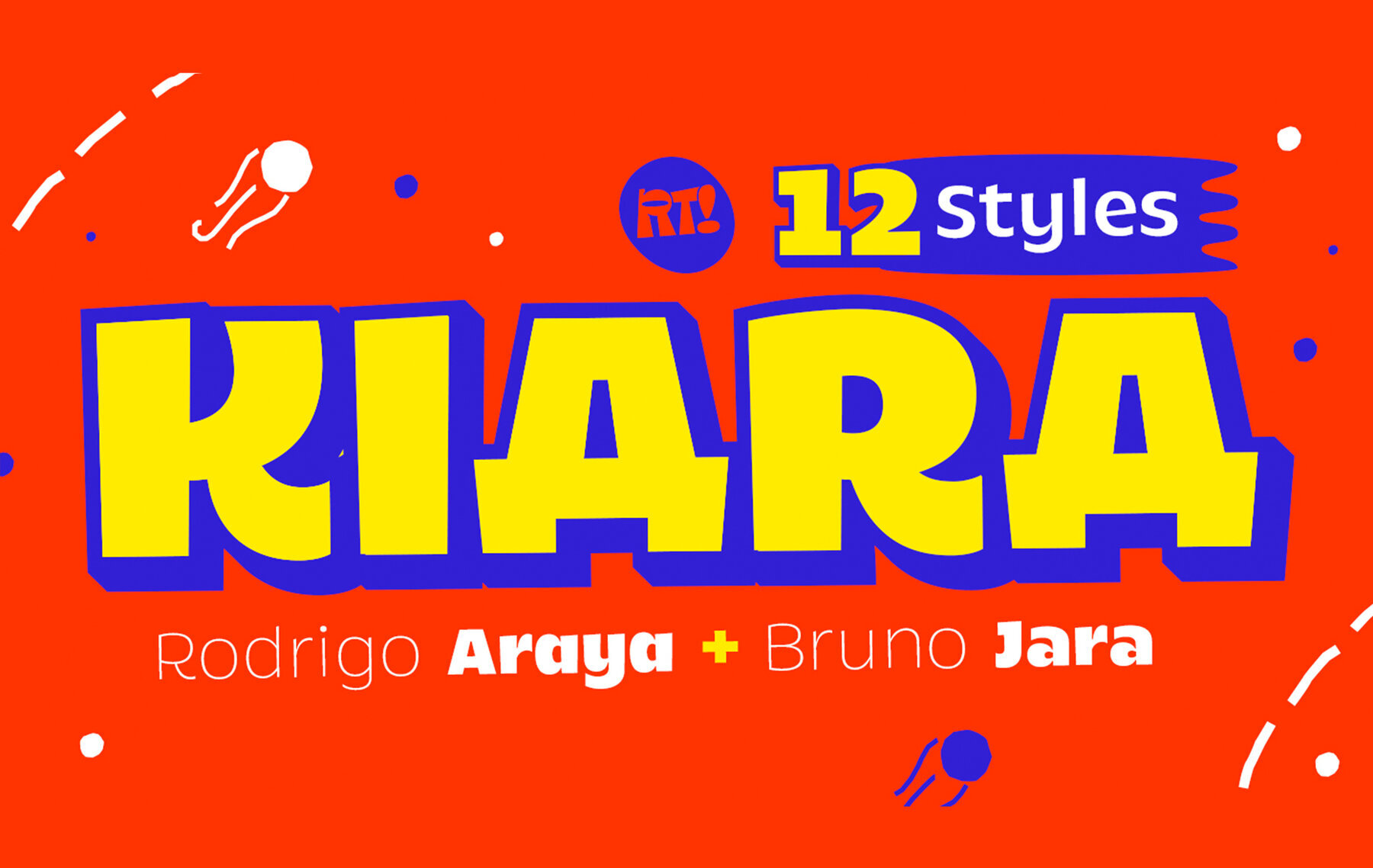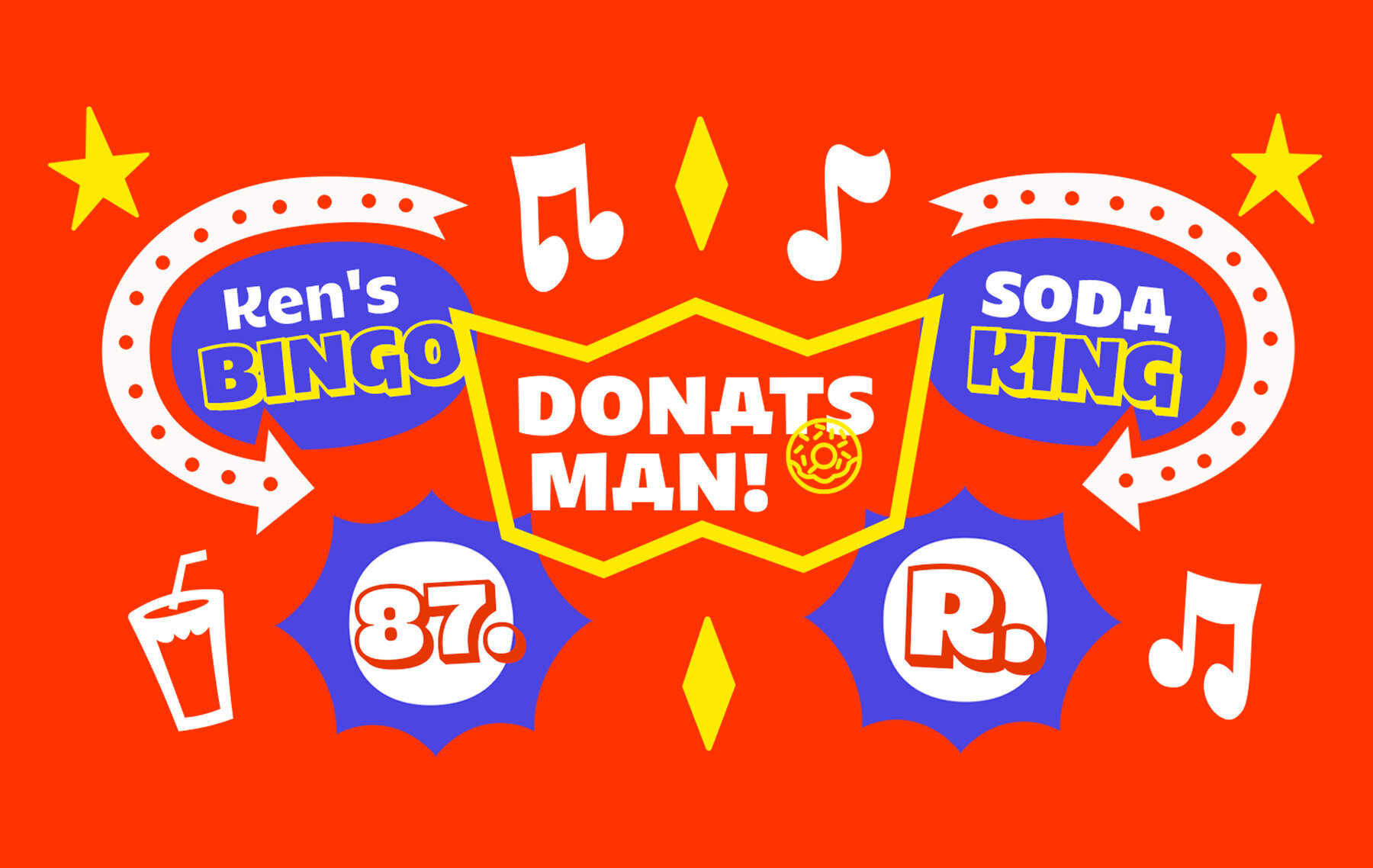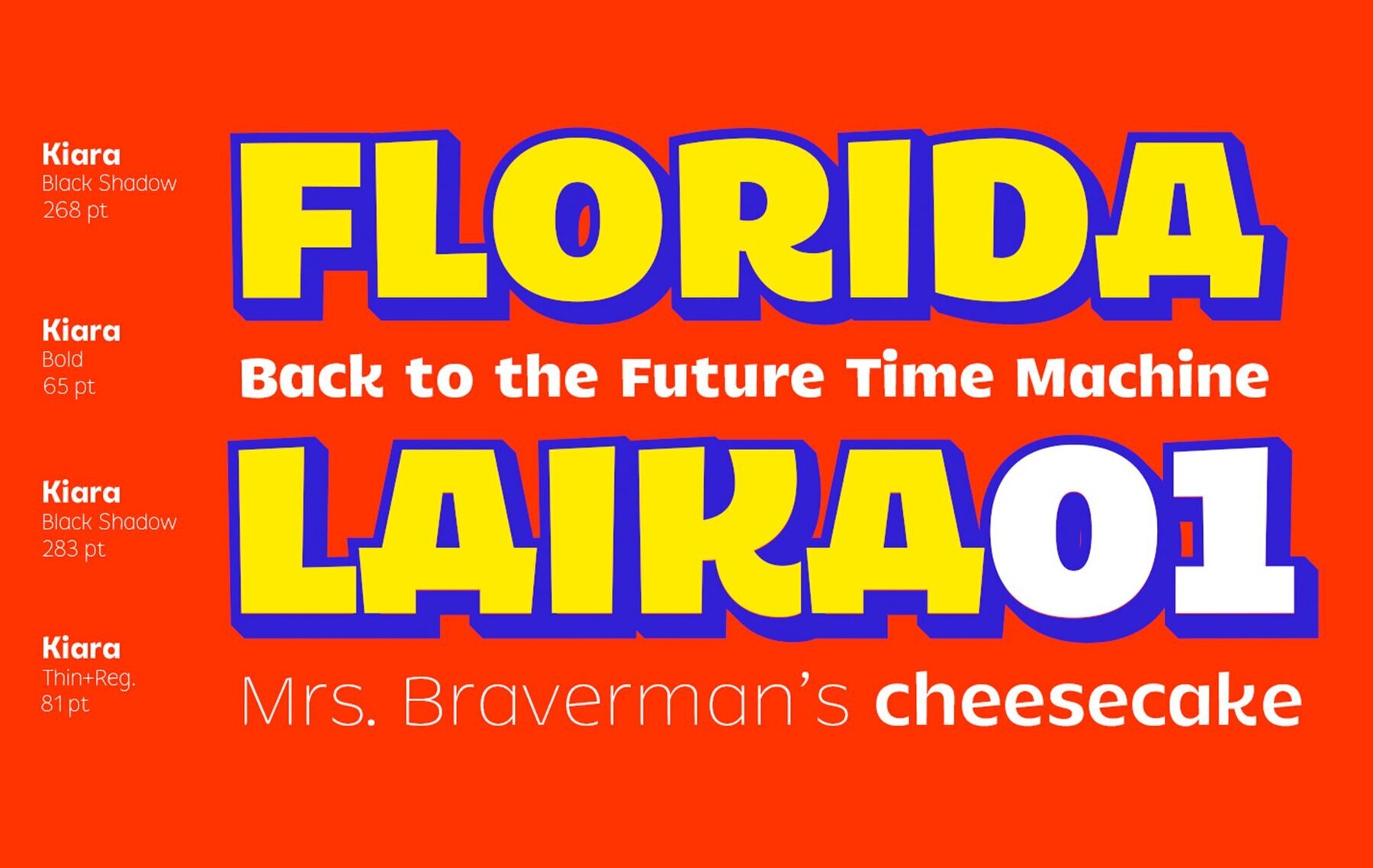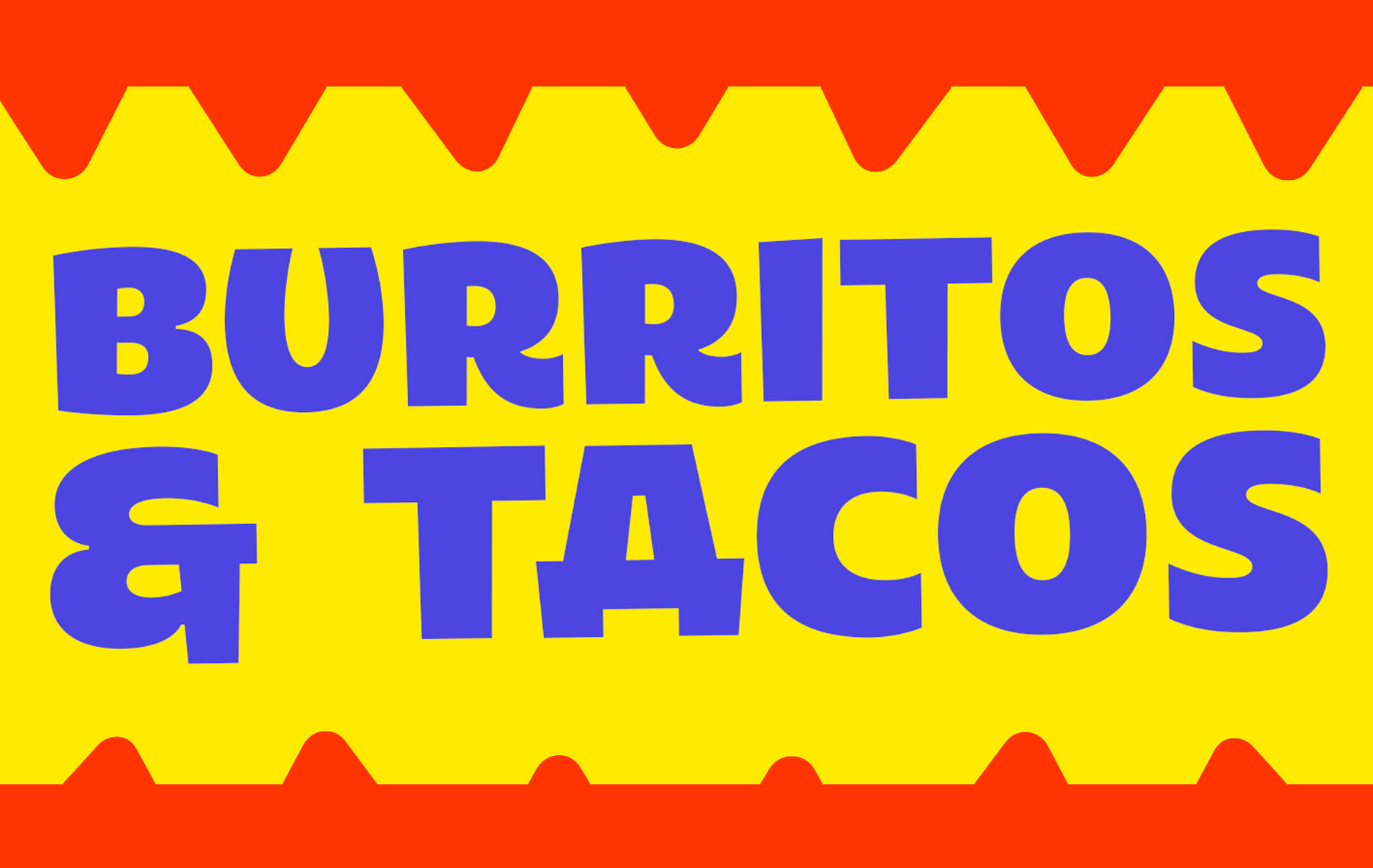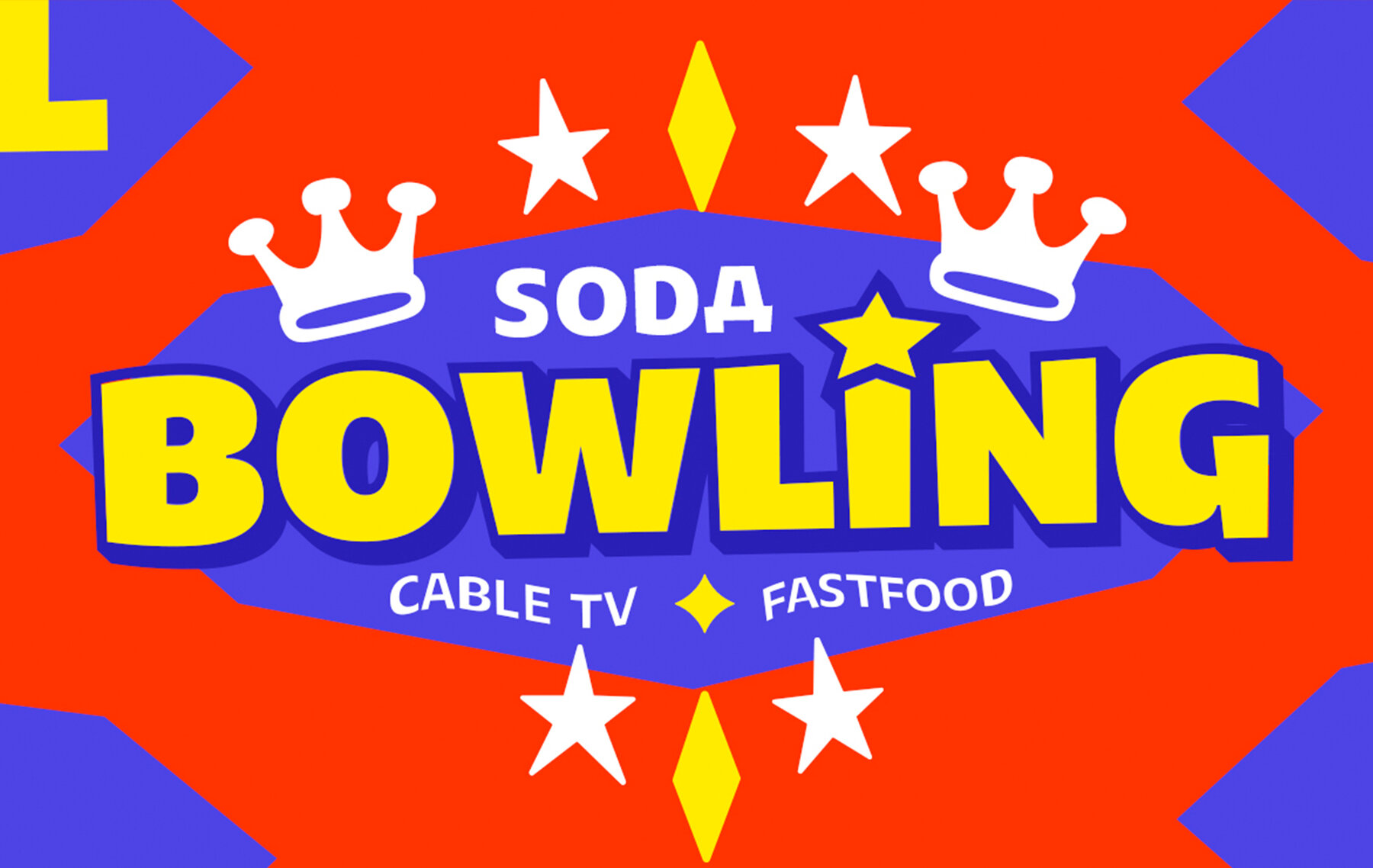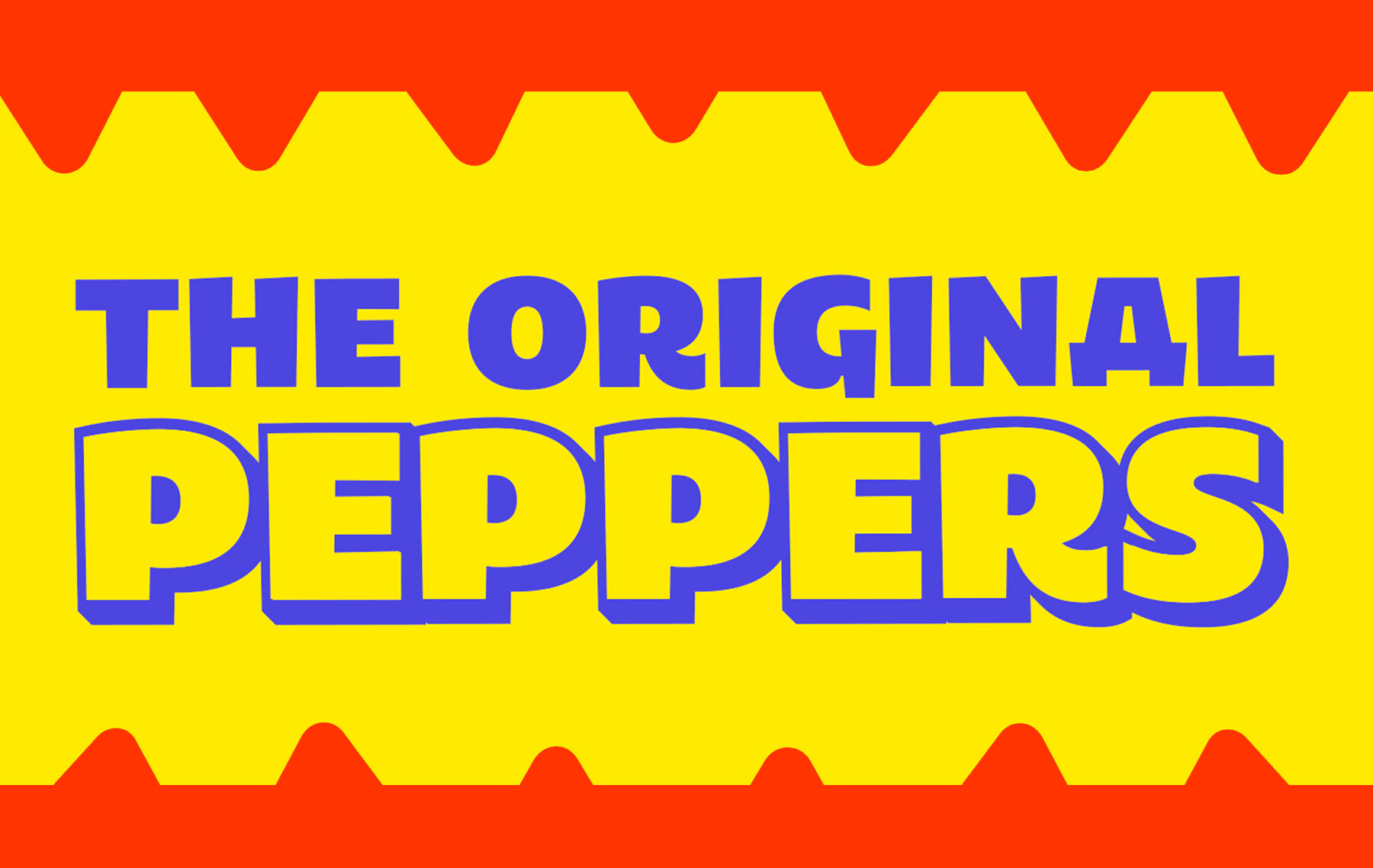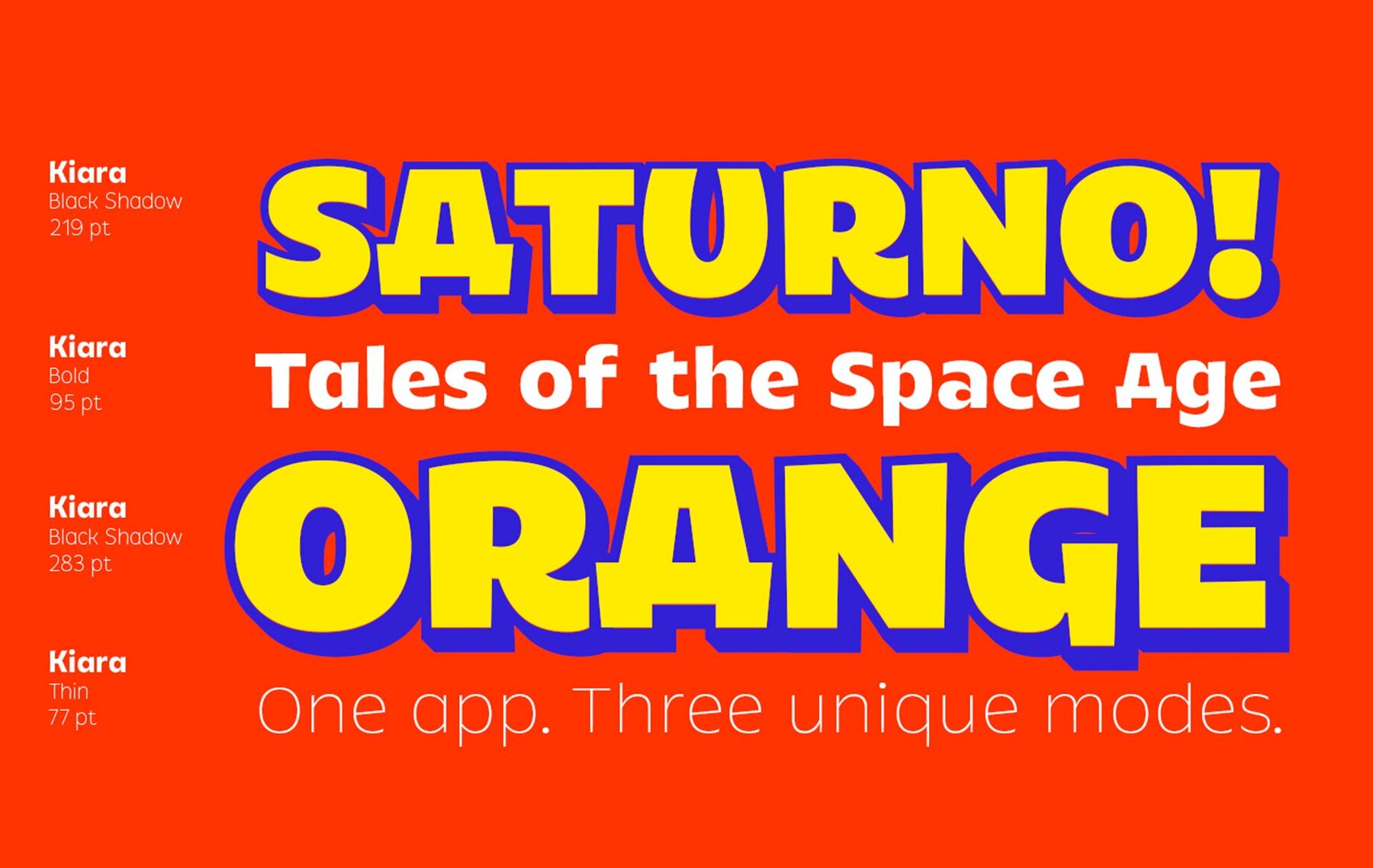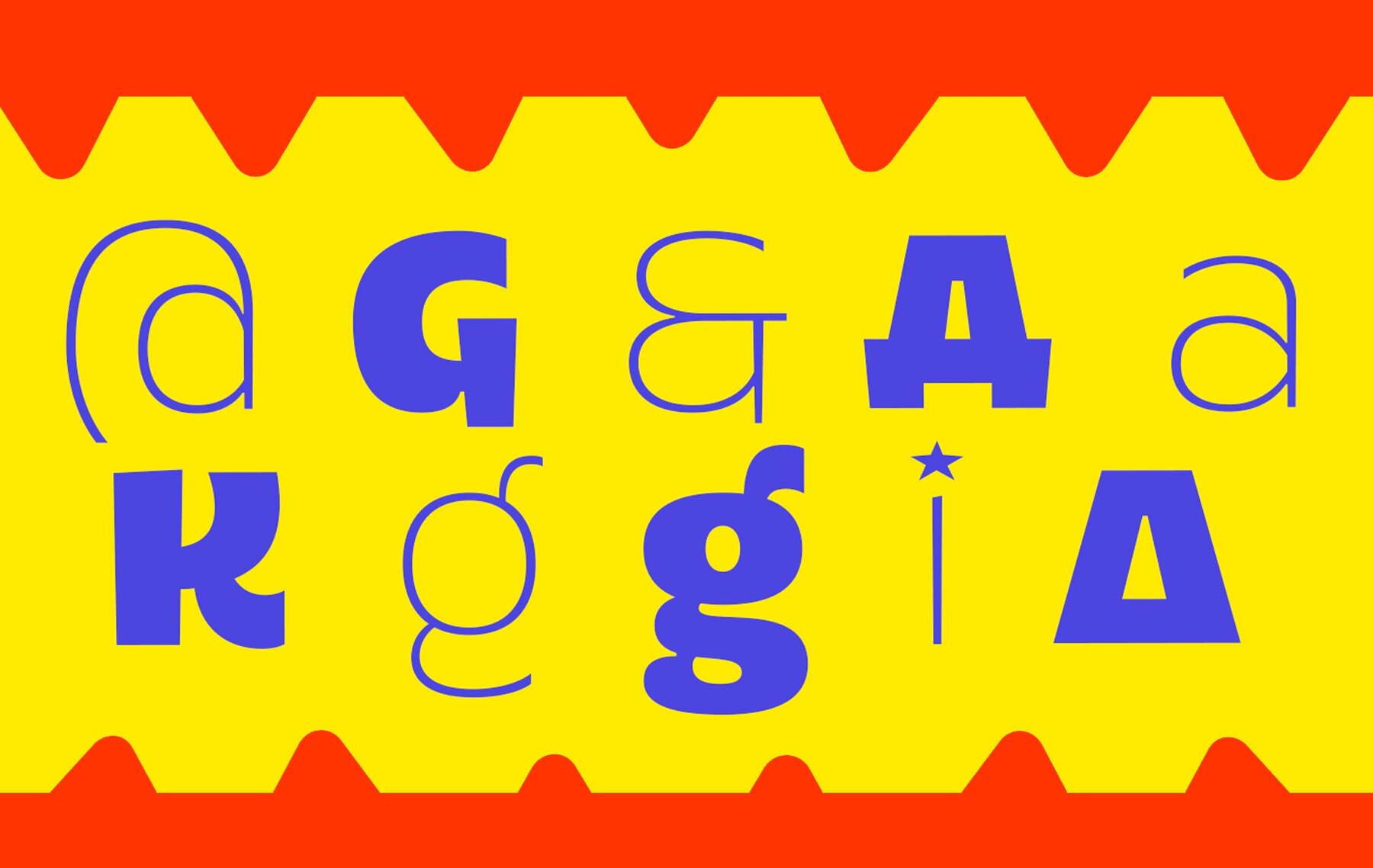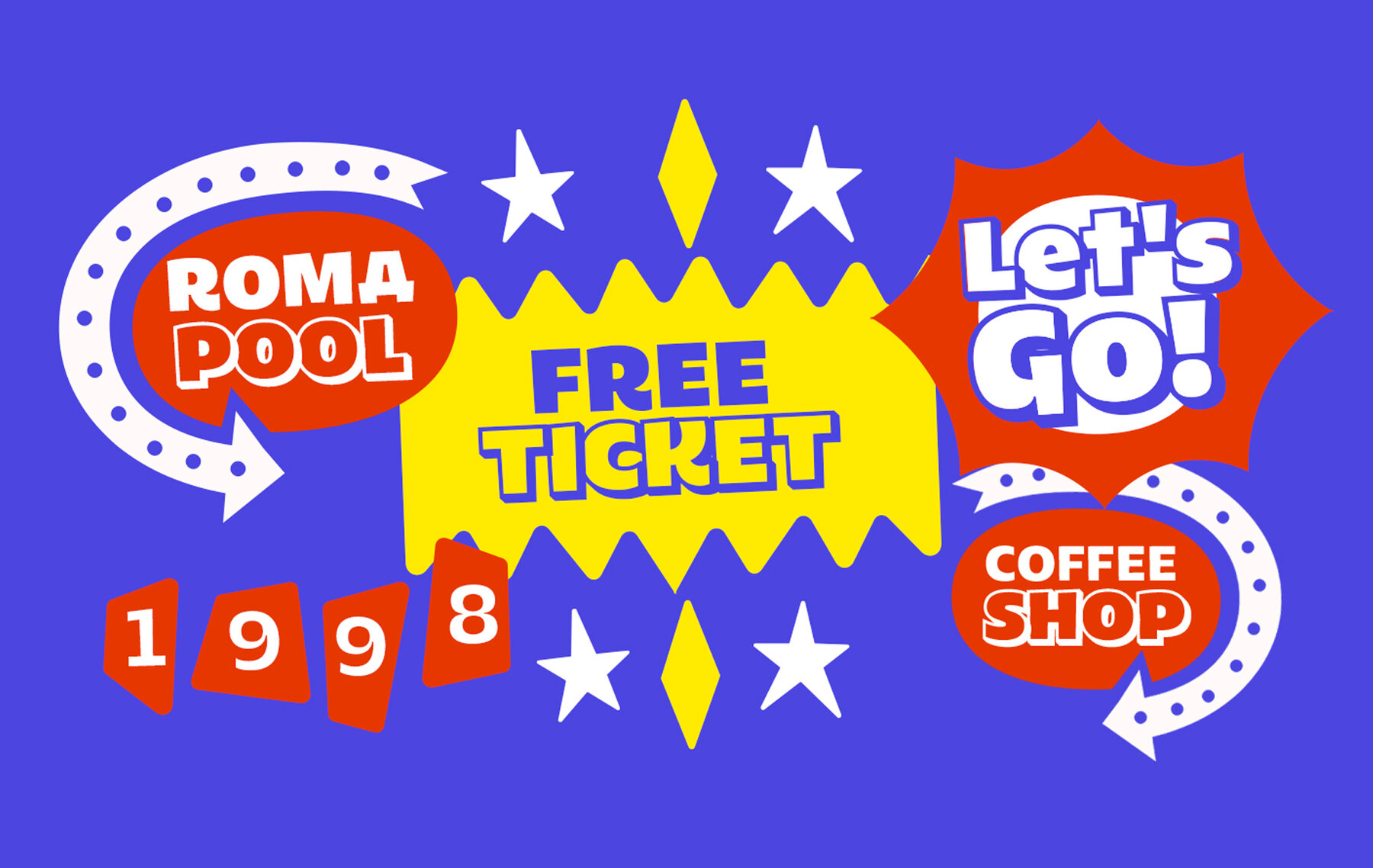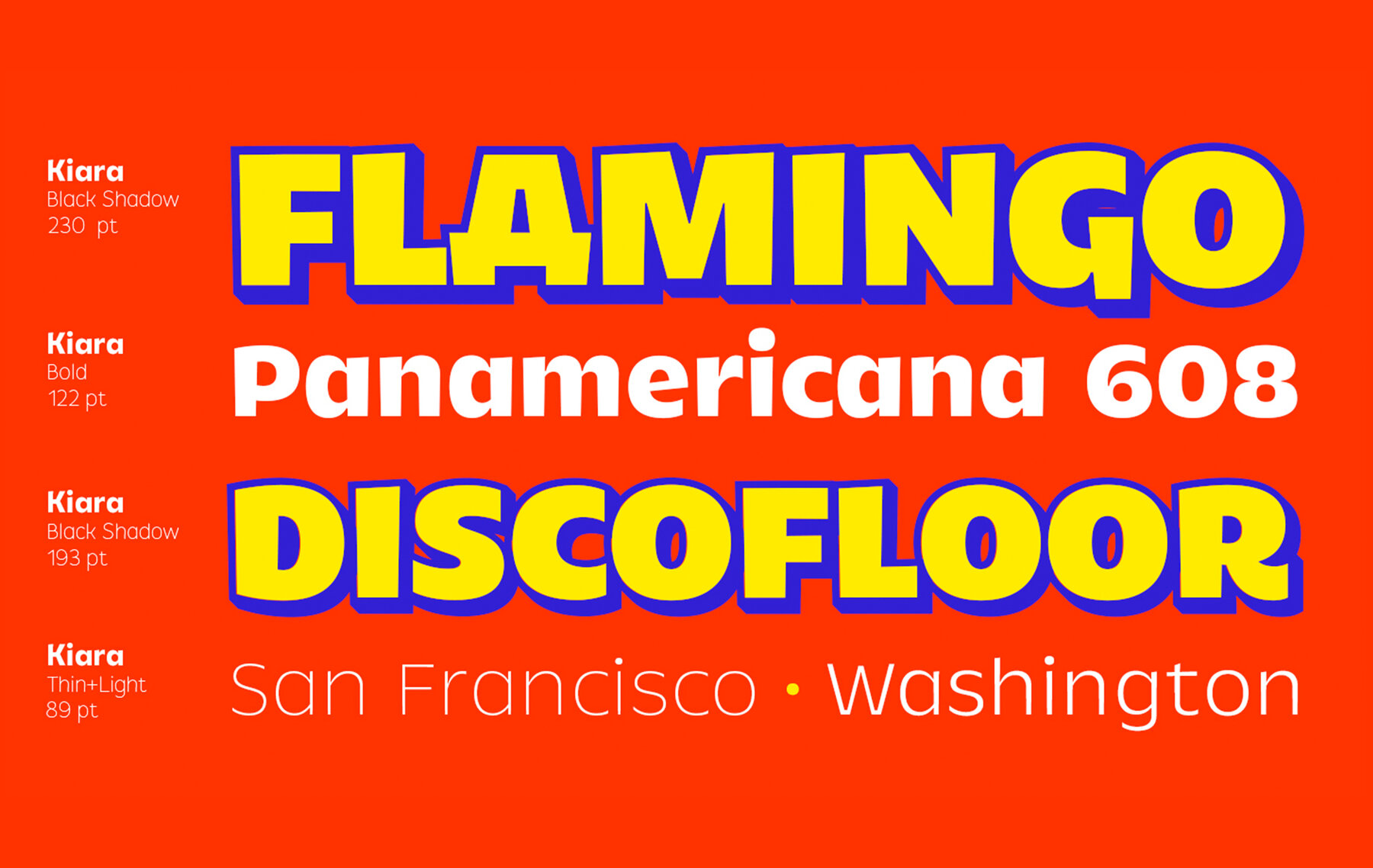
Kiara Font
Kiara typeface is a typeface designed for informal titles with very expressive letters. It also contains more than 12 variants (Thin, Light, Regular, Bold, Black) as letter alternatives and options such as "Black Shadow-Black Shadow Alternative".